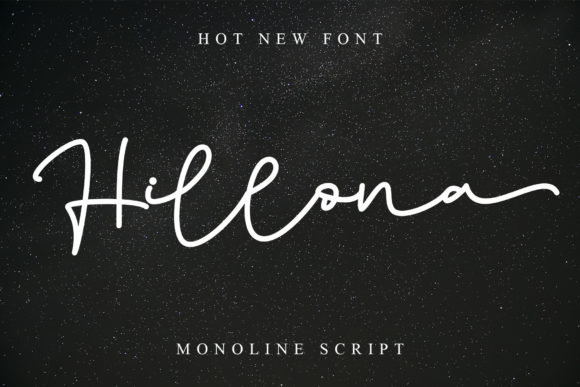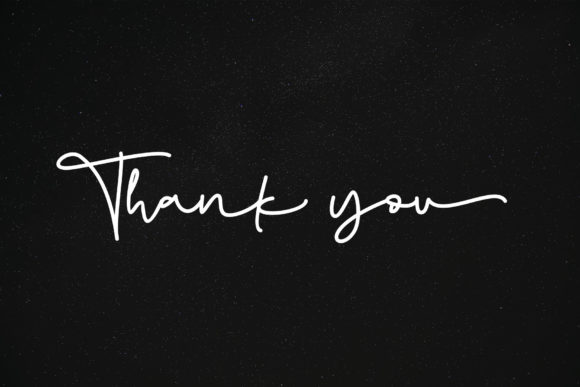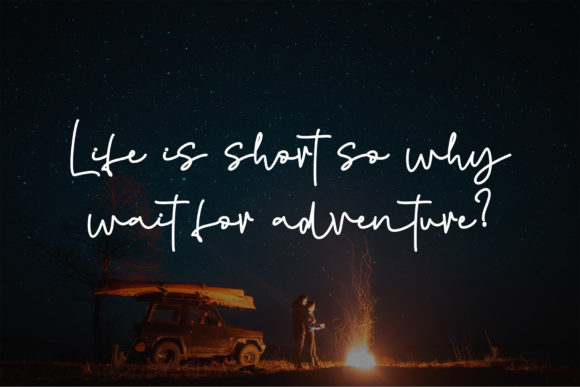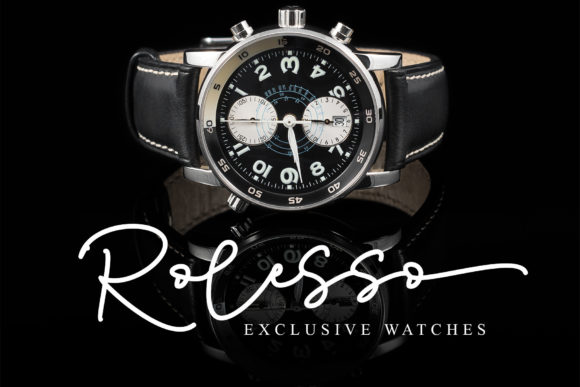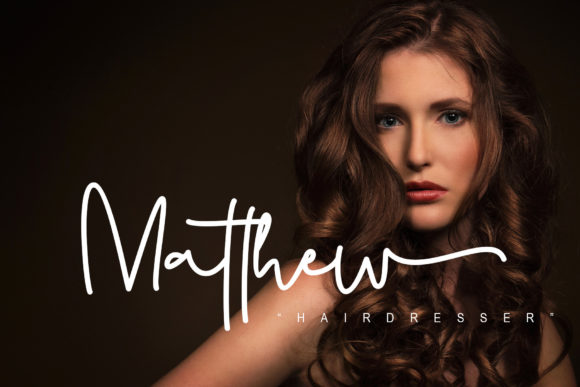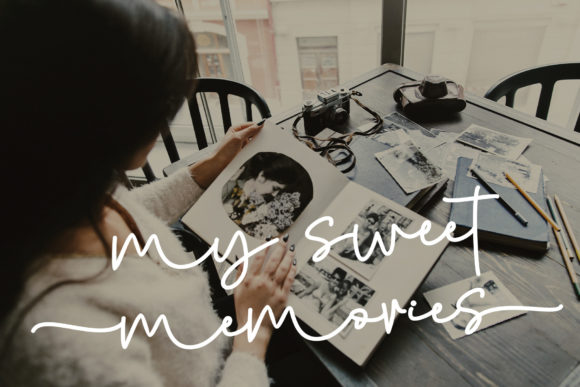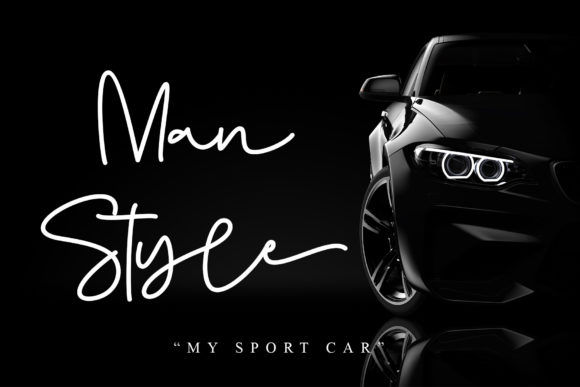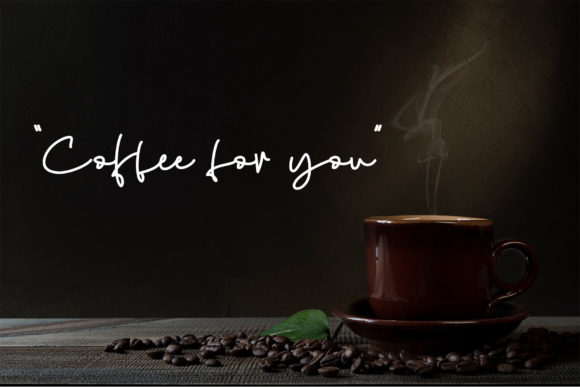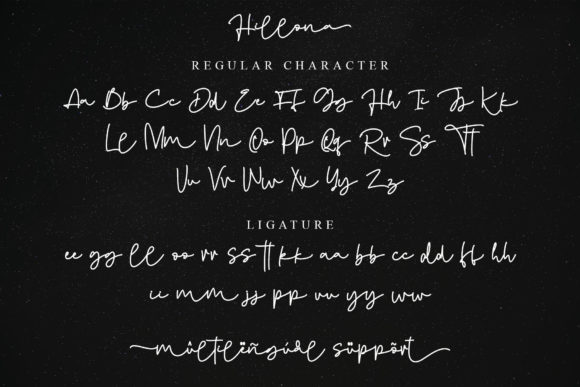
Hillona Font
About Hillona Font
Hillona is a beautiful monoline script font. Use this font for with your designs and explore its endless possibilities.